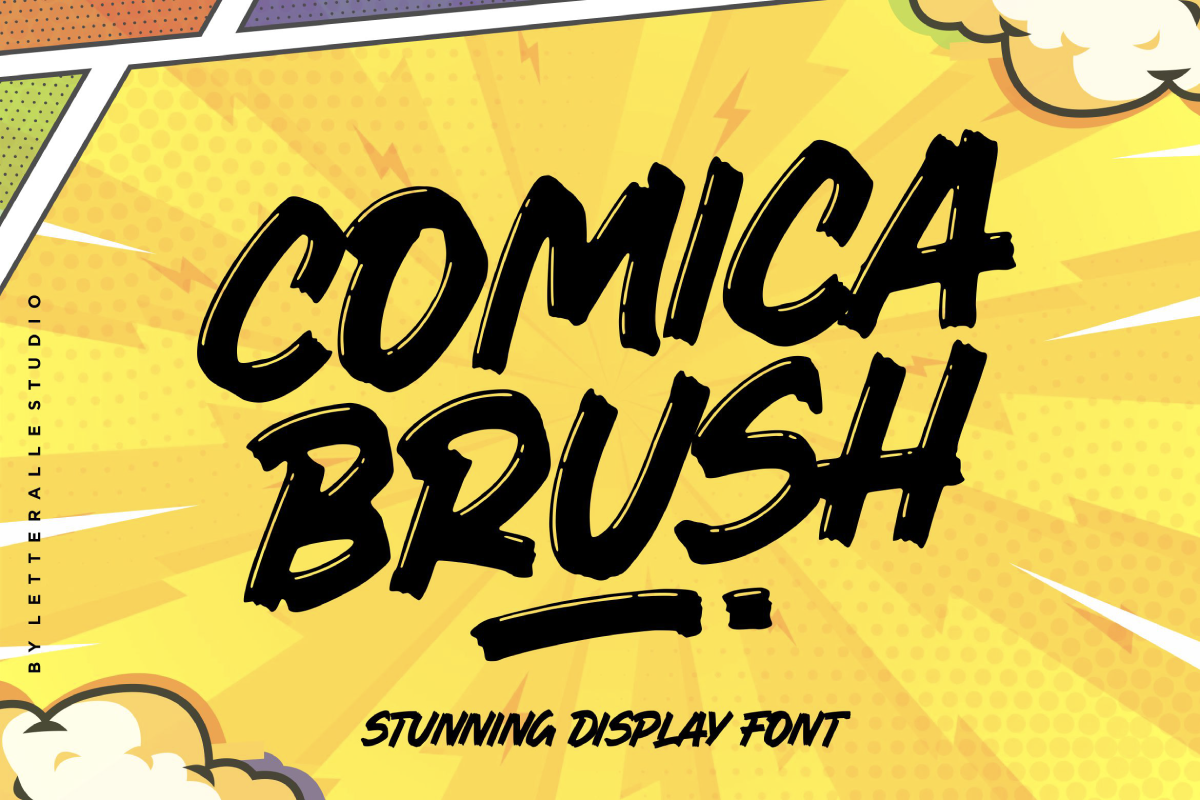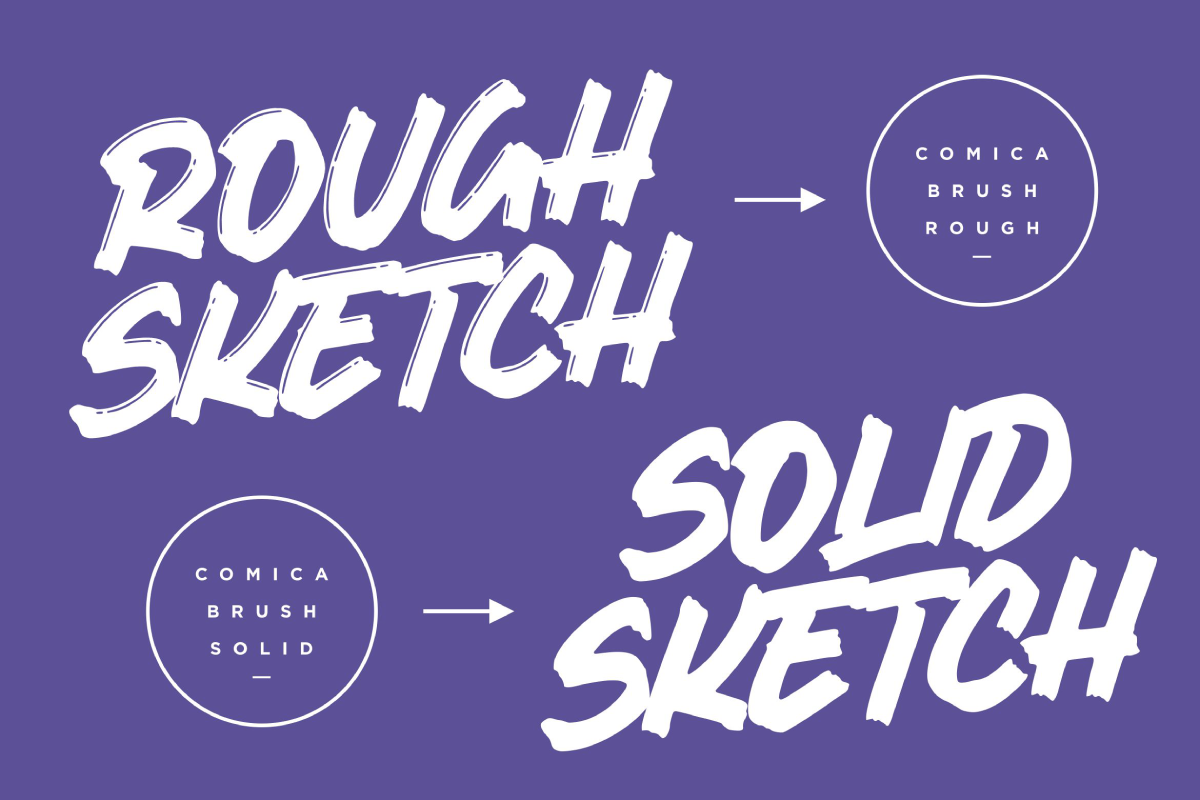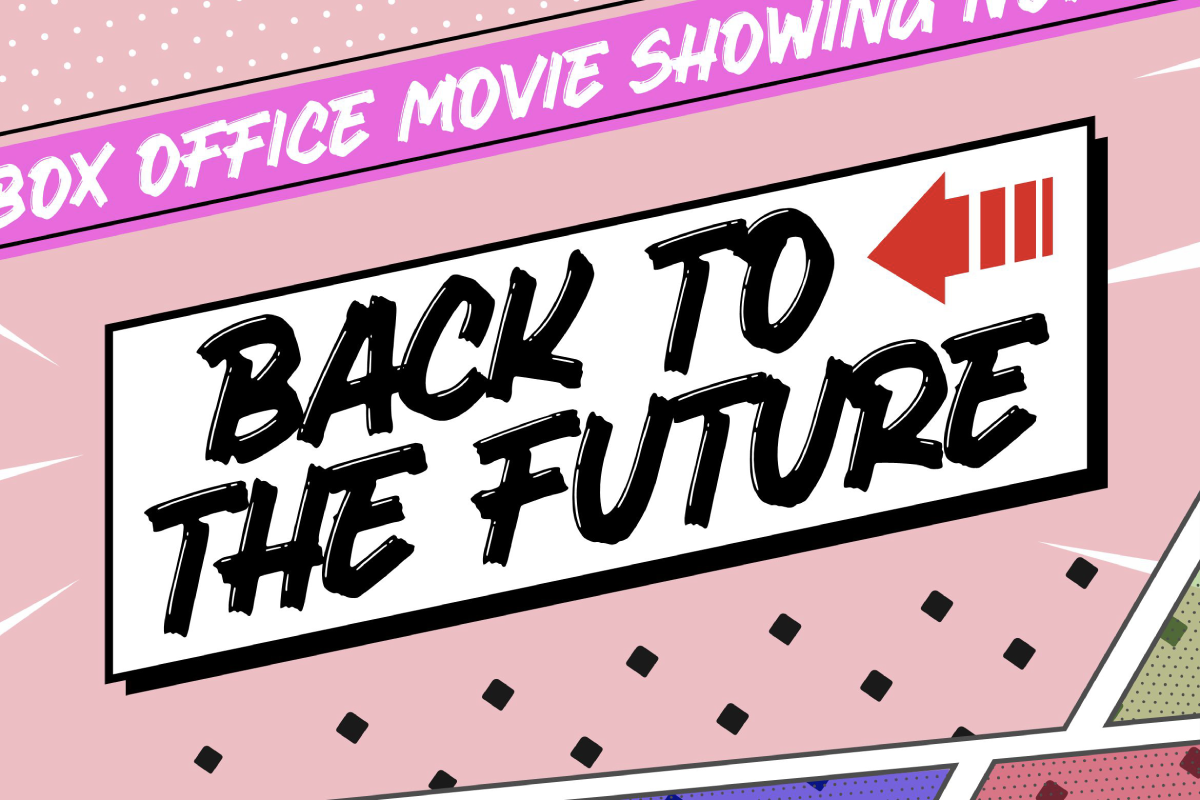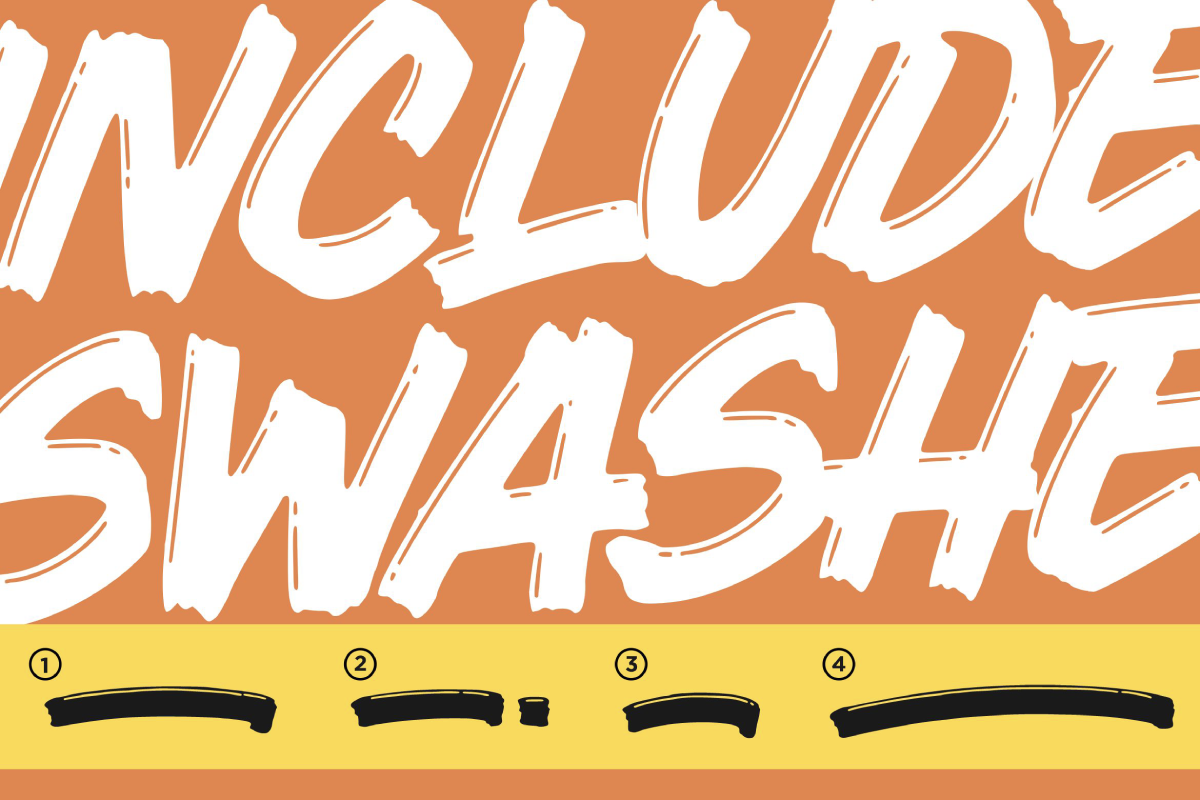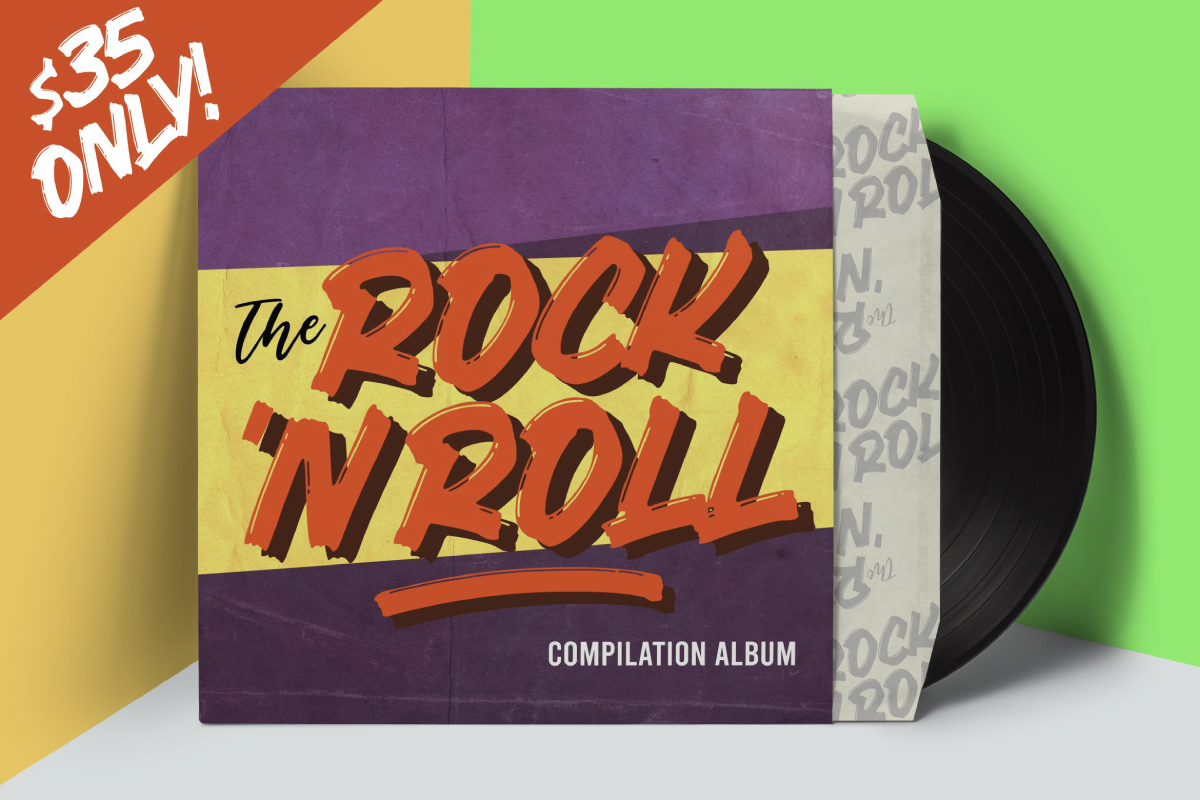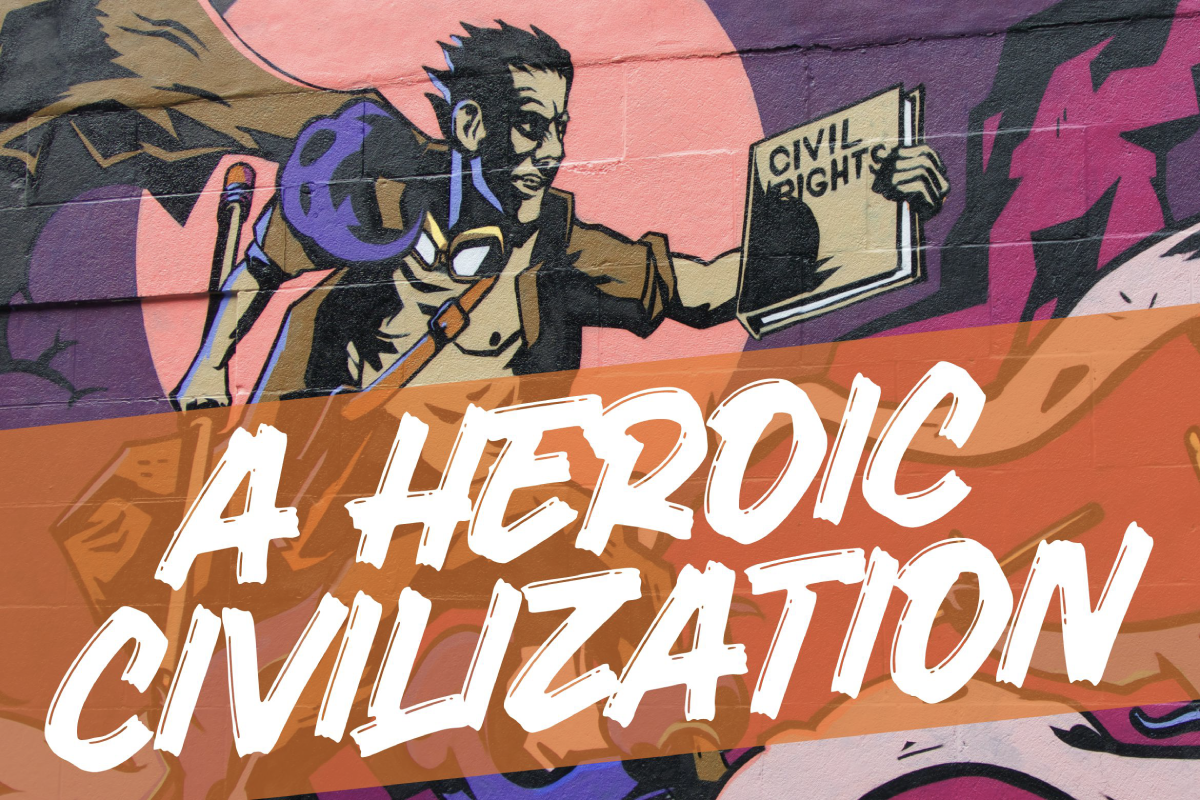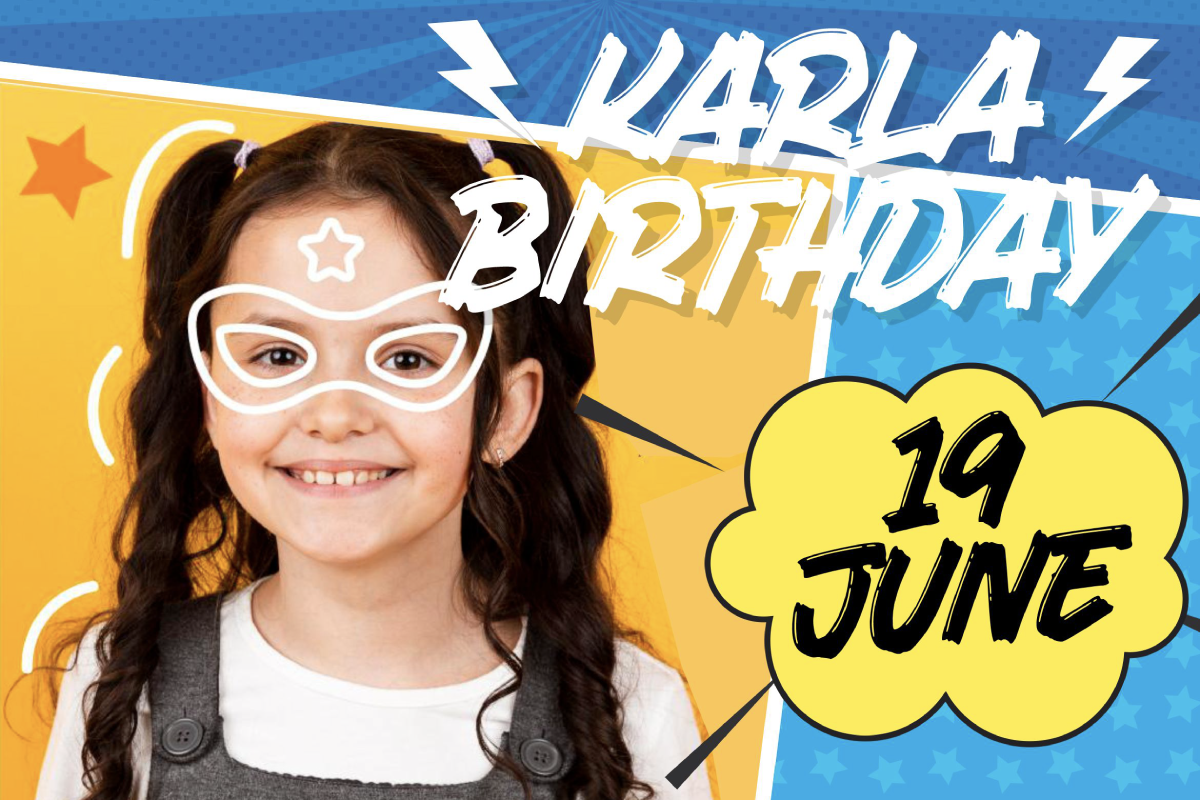
Introducing, Comica Brush Display Font! It is an attractive, bold, and playful display font. Inspired by comic books and cartoons. This font gives a charming and strong impression. Comica Brush is very suitable for various design needs such as merchandise, packaging, social media, ads, T-shirts, logos, events, and many more.
Comica Brush